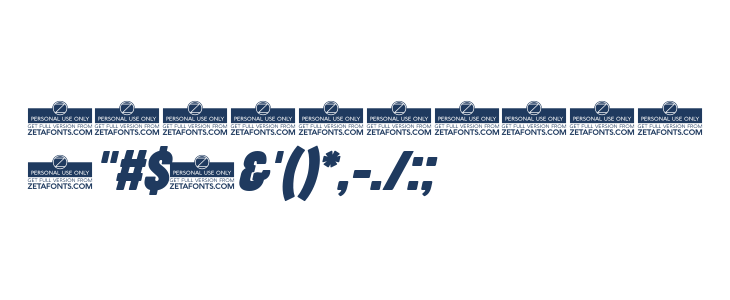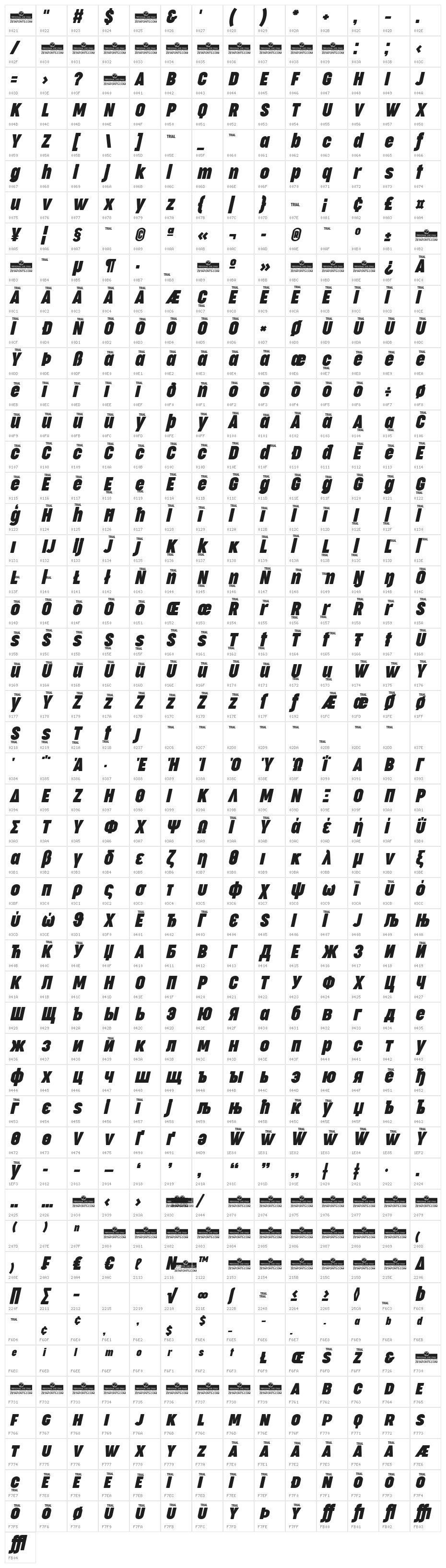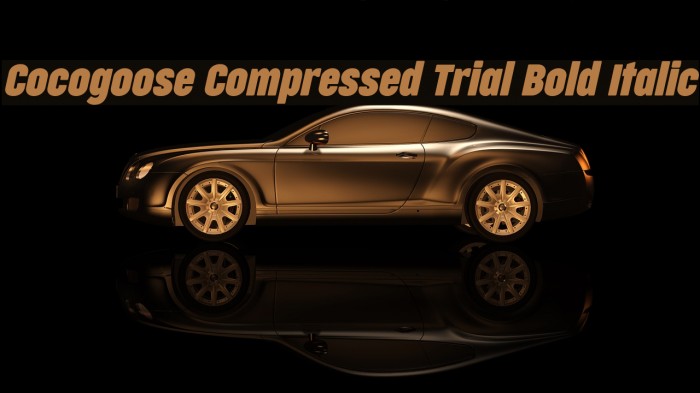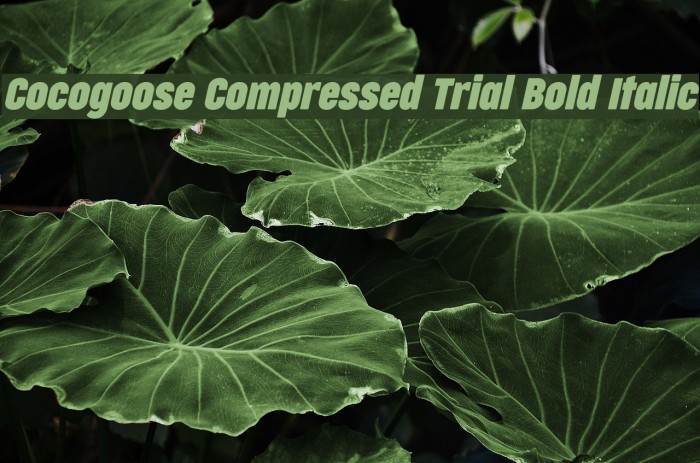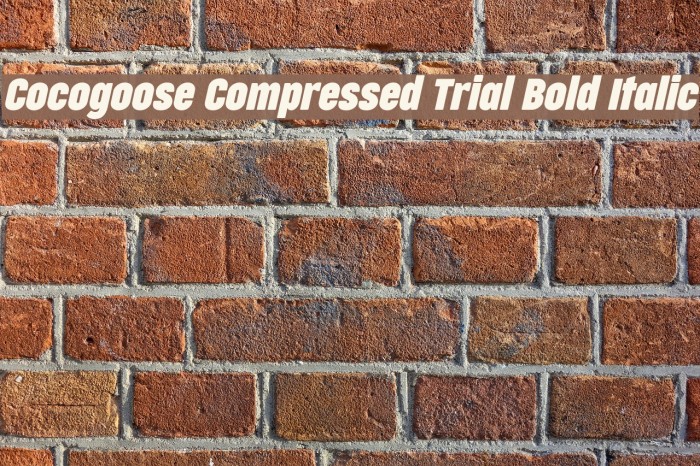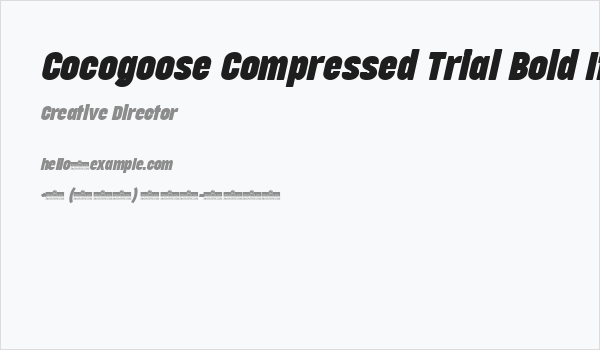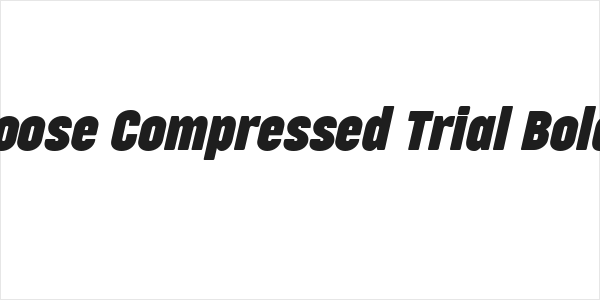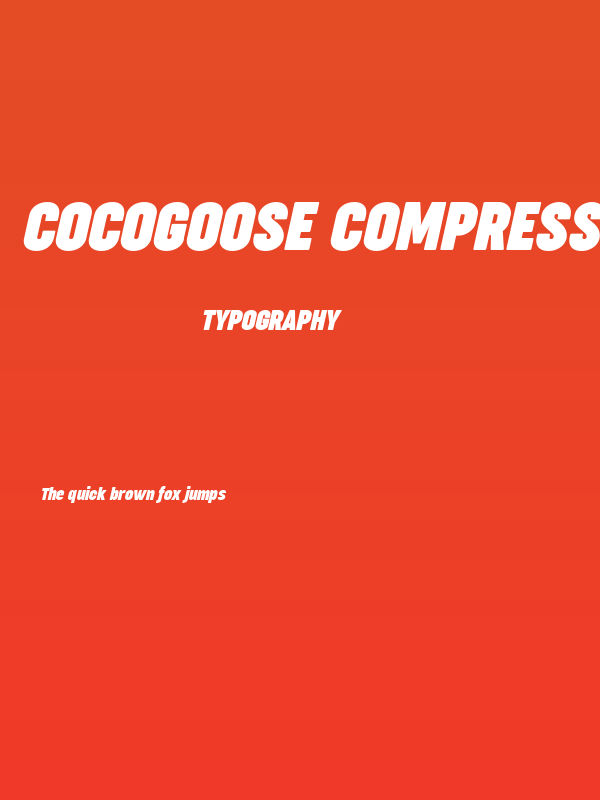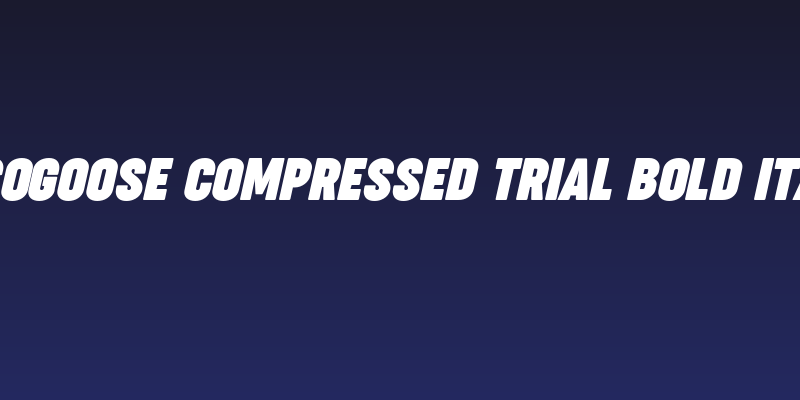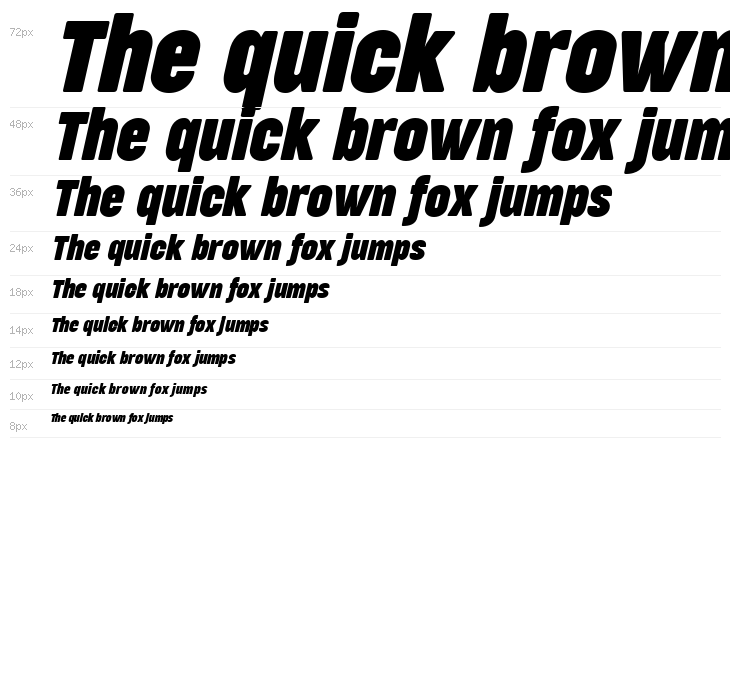
Cocogoose Compressed Trial Bold Italic Font
Cocogoose Compressed Trial Bold Italic Description
This font features a bold and italic style with a compressed width, giving it a strong and impactful appearance. The uppercase and lowercase letters are designed with a modern flair, showcasing a sleek and dynamic look. The characters are tightly spaced, enhancing the compact and powerful aesthetic. The font includes a full set of uppercase and lowercase letters, numbers, and a variety of special characters. Its bold strokes and italic slant make it ideal for attention-grabbing headlines and designs that require a contemporary and assertive touch.
| Proposed Projects | Ideal for branding, advertising, posters, and any design that requires a bold statement. |